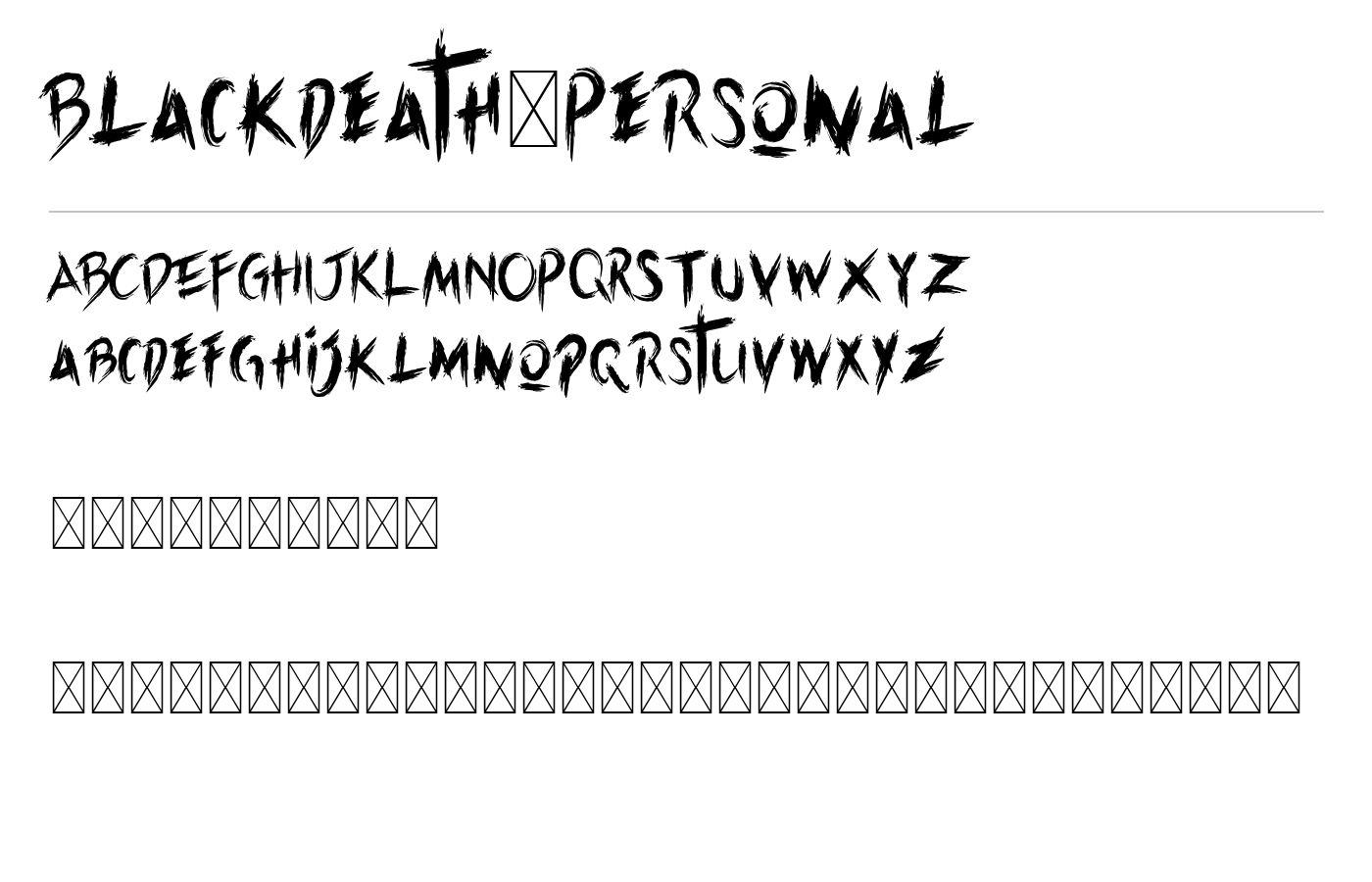
Blackdeath-Personal is a bold, expressive handwritten font with sharp, rough strokes that give it an edgy and intense character. Its irregular, brush-like letterforms create a strong, dynamic impression, making it ideal for designs seeking a rebellious, dramatic, or horror-inspired vibe. This font works best for eye-catching headlines, posters, and branding where a striking, personal touch is desired.
Blackdeath-Personal Font
About Blackdeath-Personal Font
| Font family | Blackdeath-Personal Font |
| Designer | Septiandika Pratama |